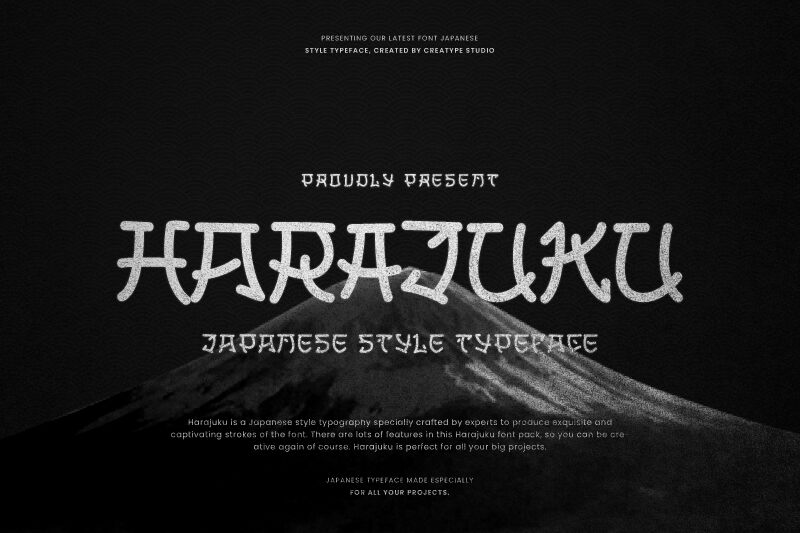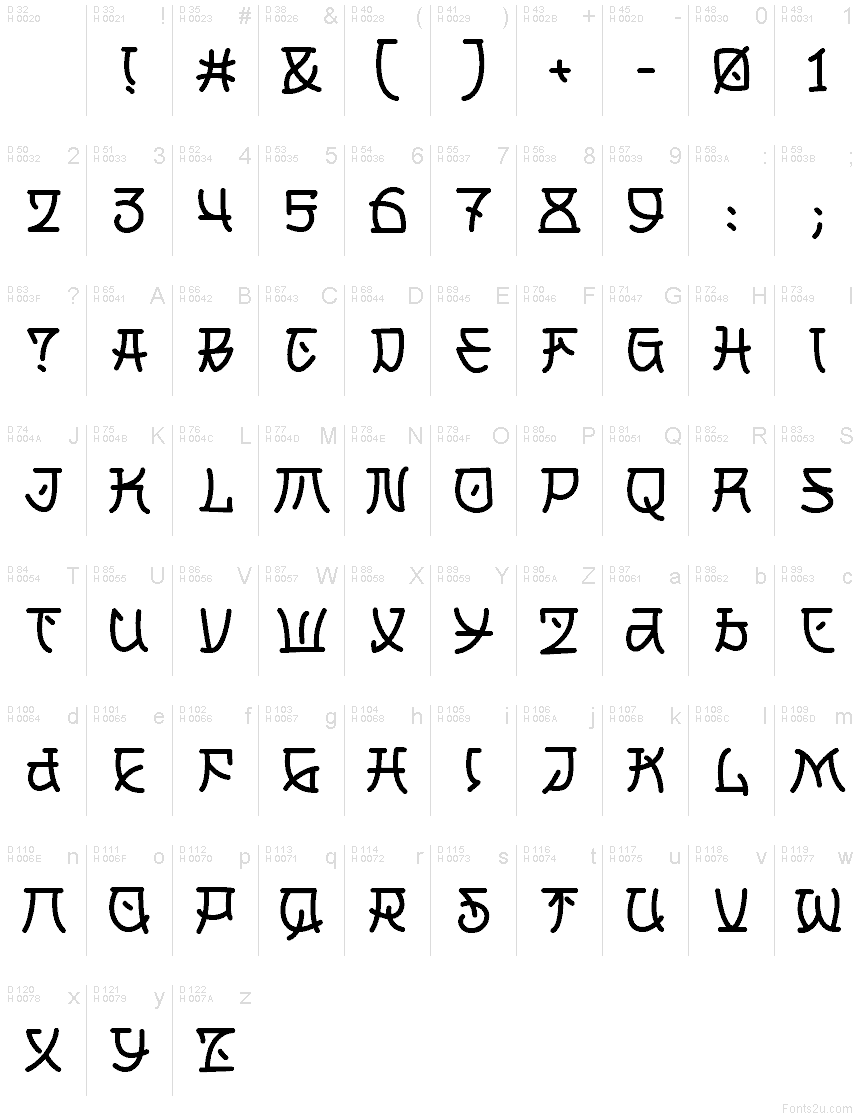
Harajuku Regular
Harajuku font by Creatype Studio is a free Japanese-style decorative typeface that channels the feel of hand-painted shop signs and street fashion tags. Its tall, slightly wobbly letters curve like ink strokes on textured paper, giving every word a loose, energetic rhythm. Rounded corners keep it friendly rather than aggressive, so it suggests neon-lit backstreets and manga covers more than solemn tradition.
Using Harajuku, this free font shines on ramen bar logos, sushi menus, event posters, travel blogs, gaming titles, and bold social media graphics. The quirky shapes grab attention in a few big words, so keep supporting text in a clean sans serif and let Harajuku handle the headline at large sizes for maximum impact.